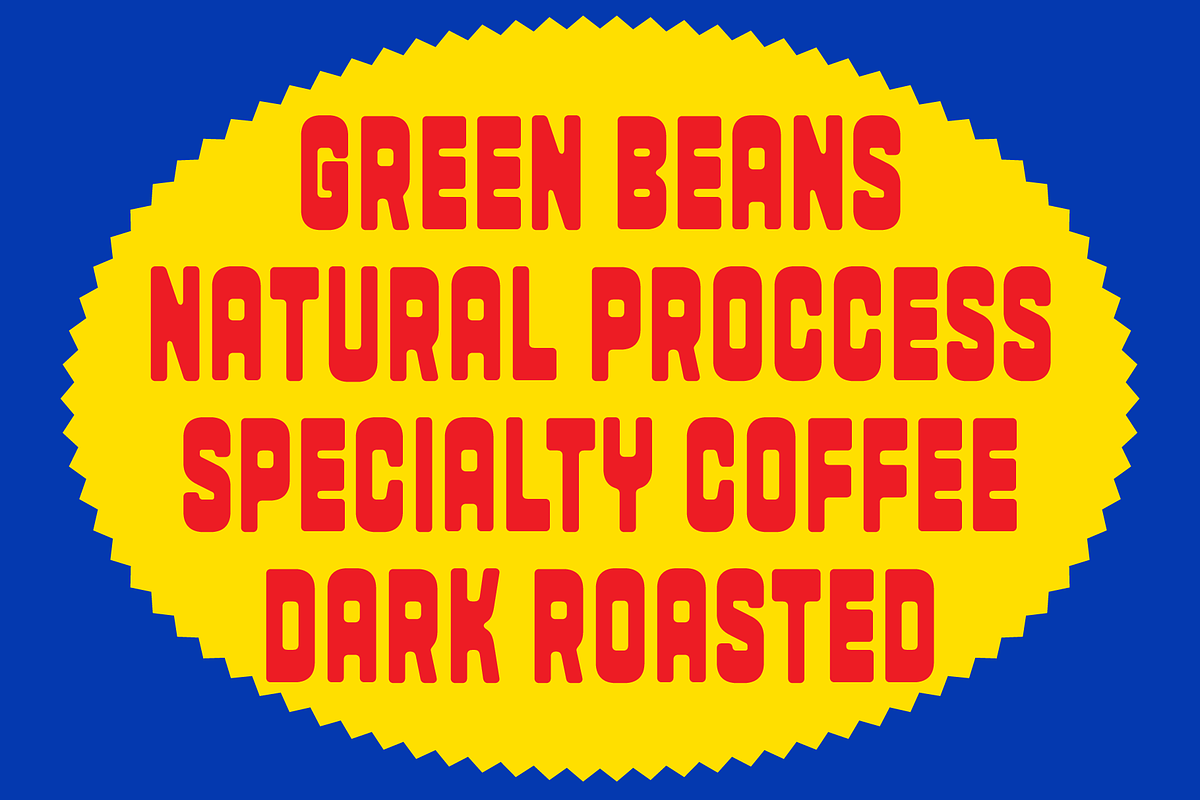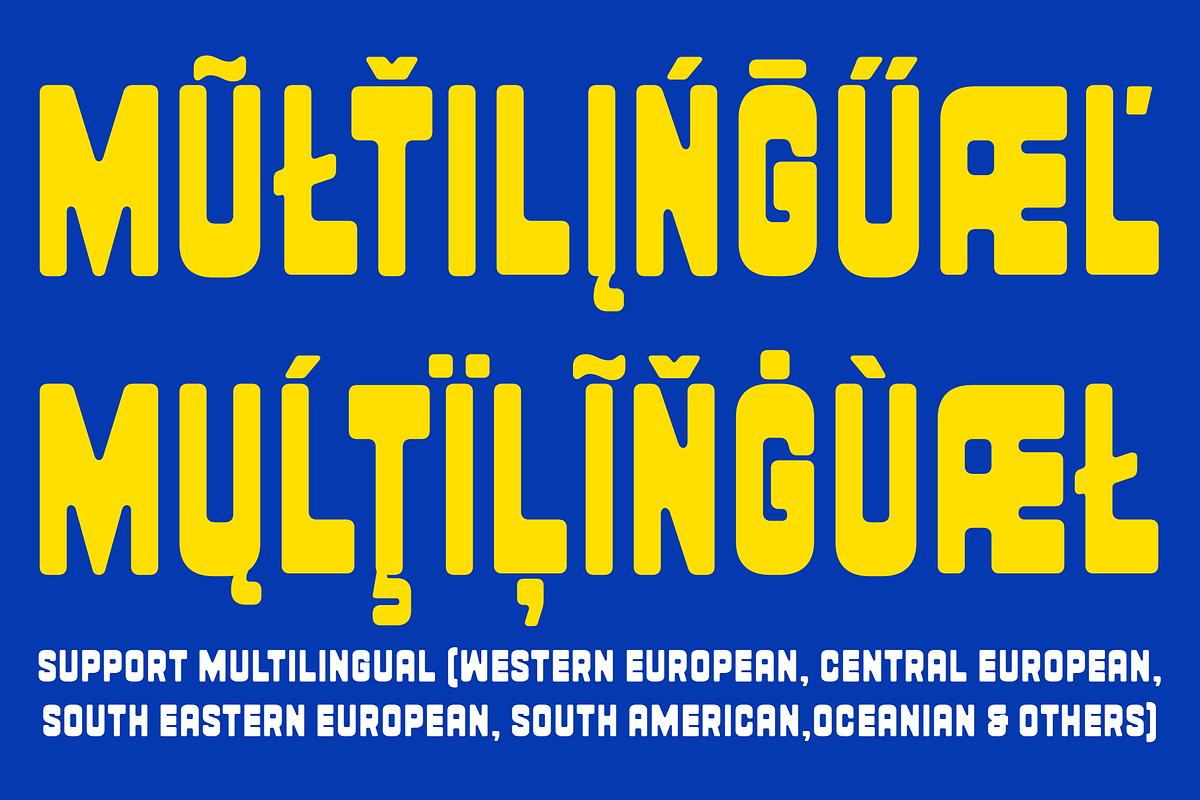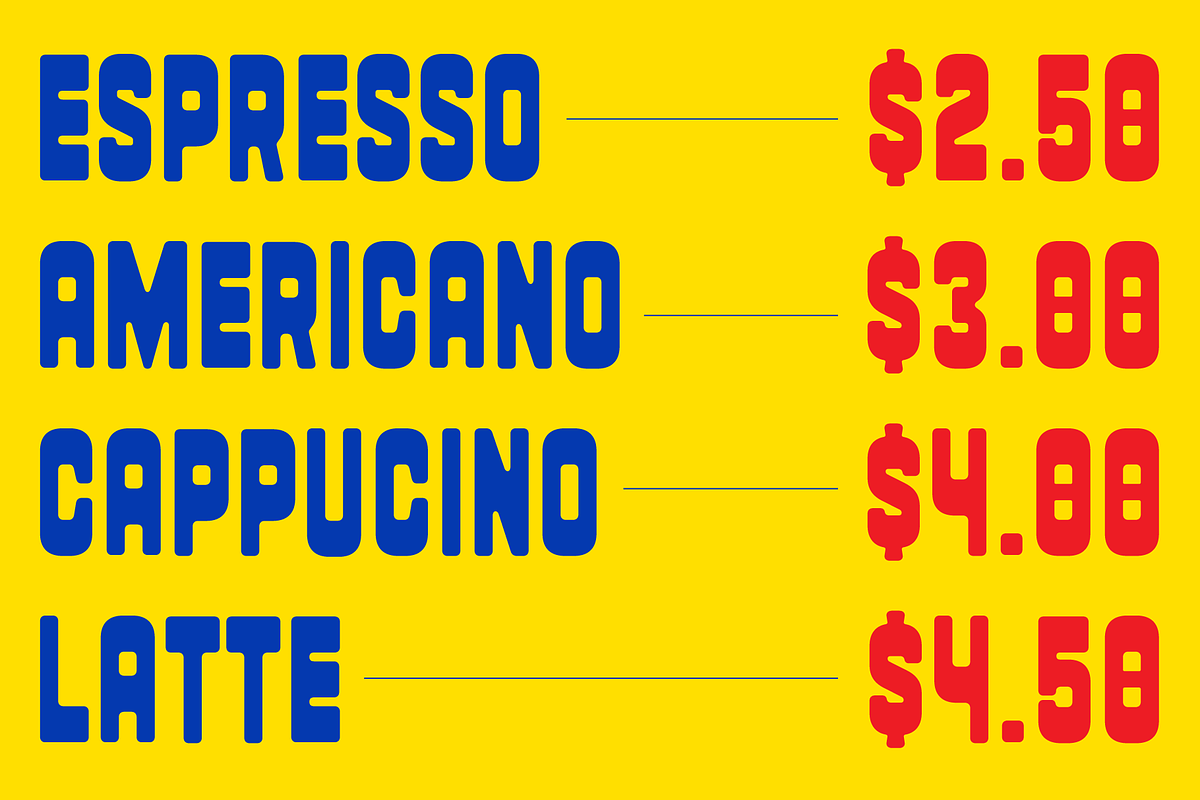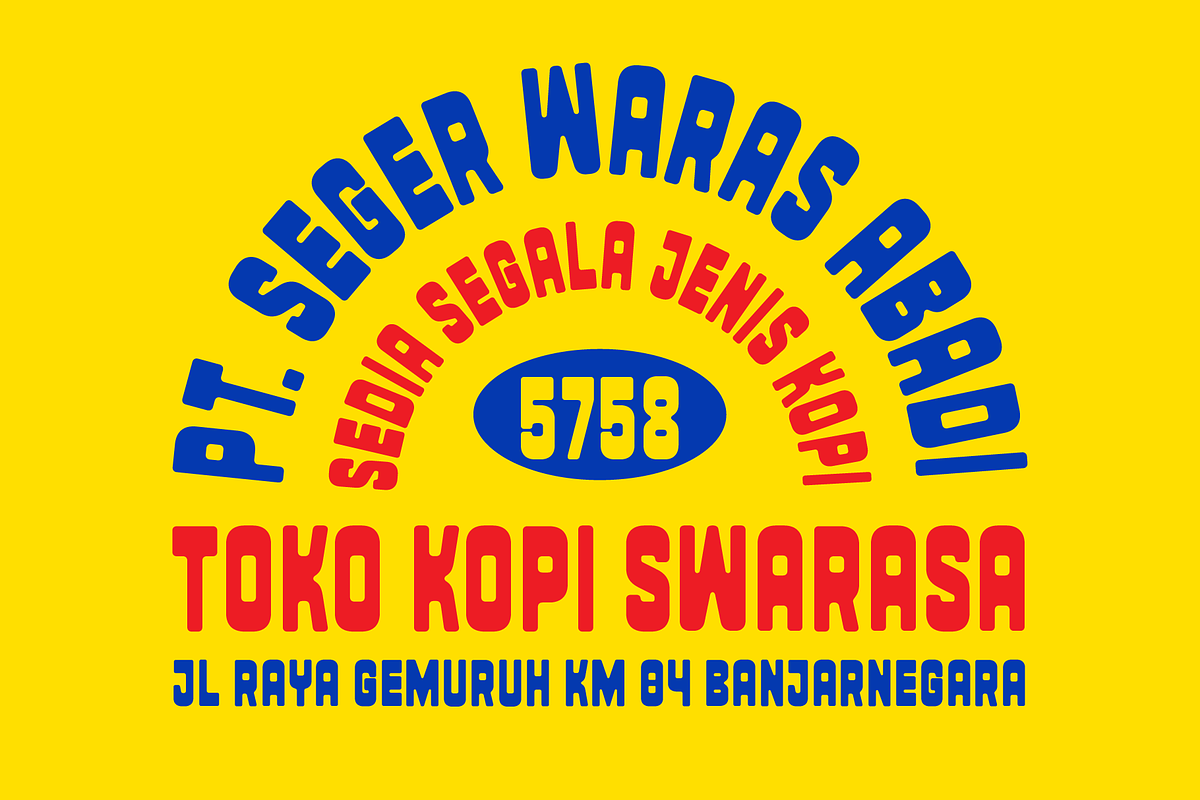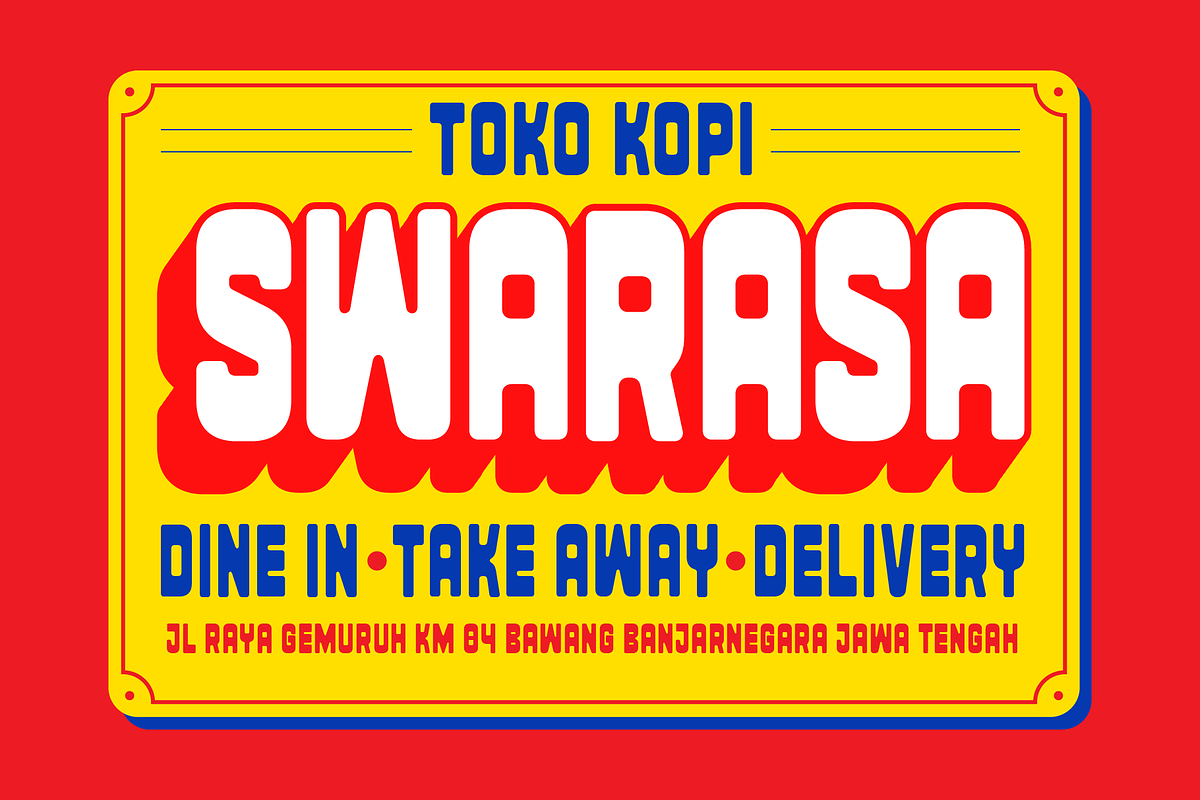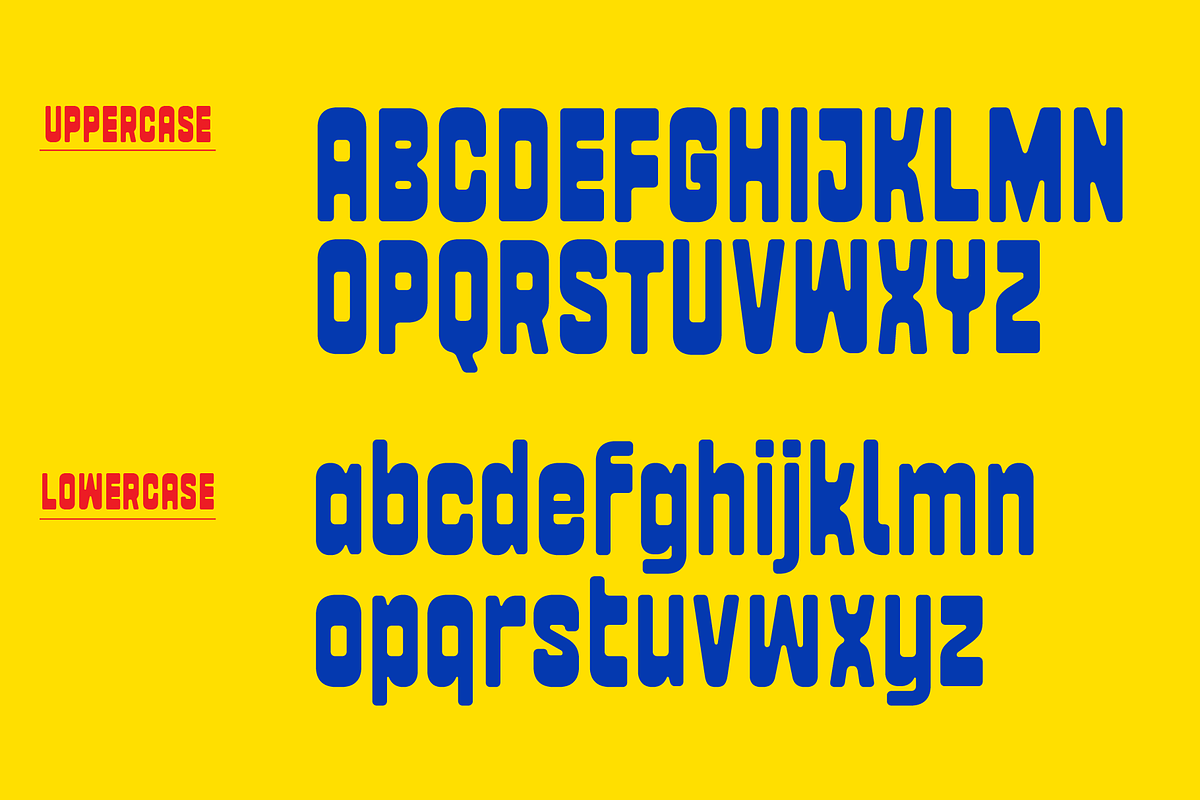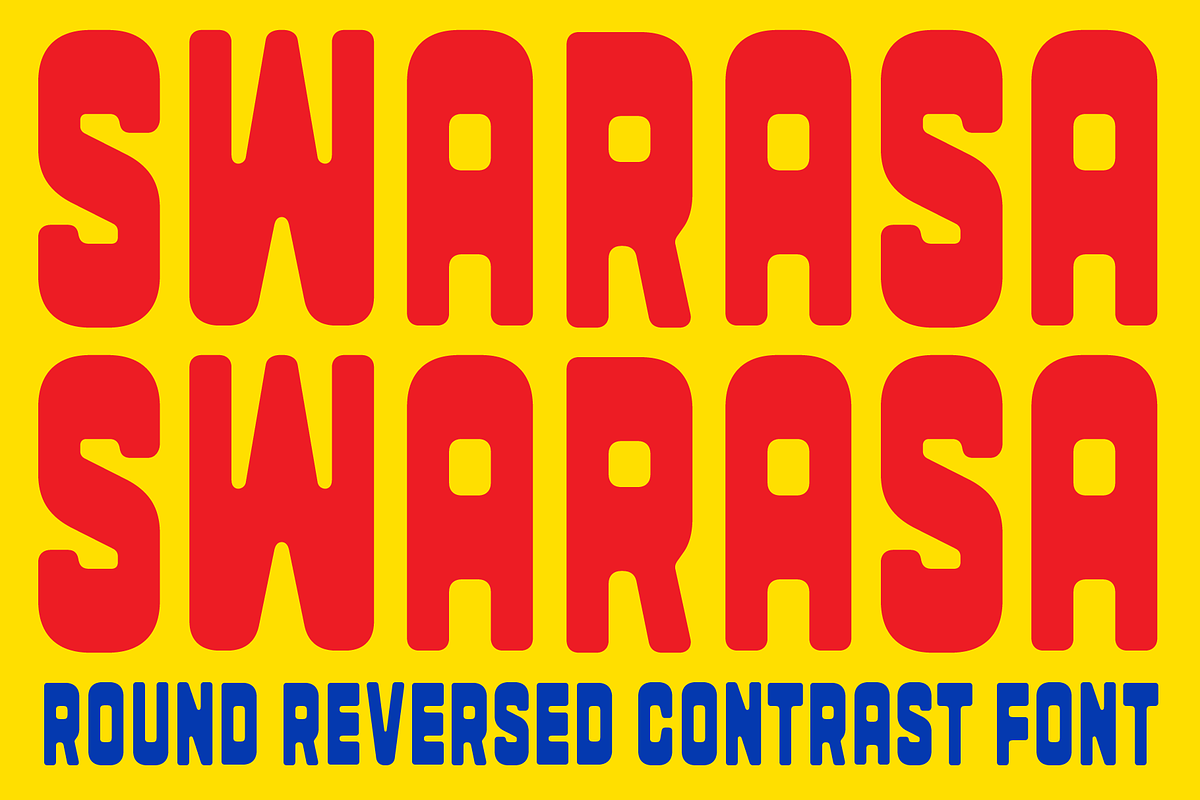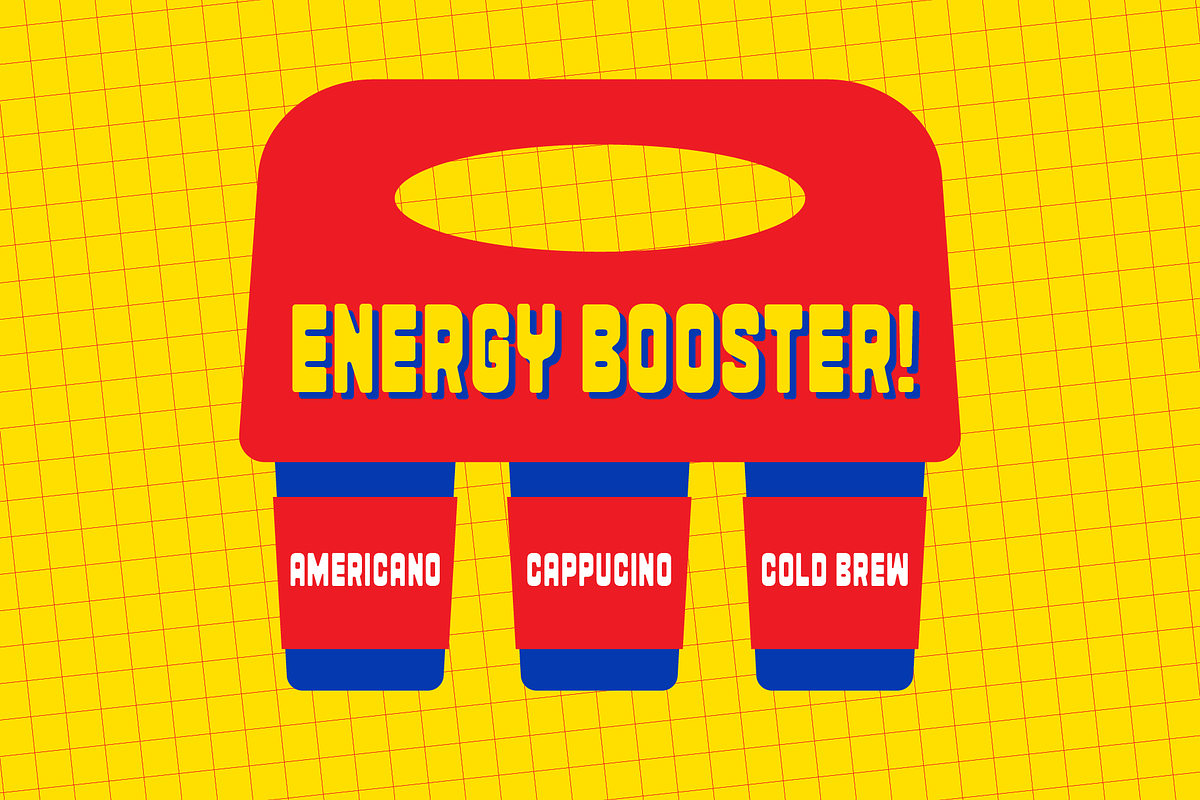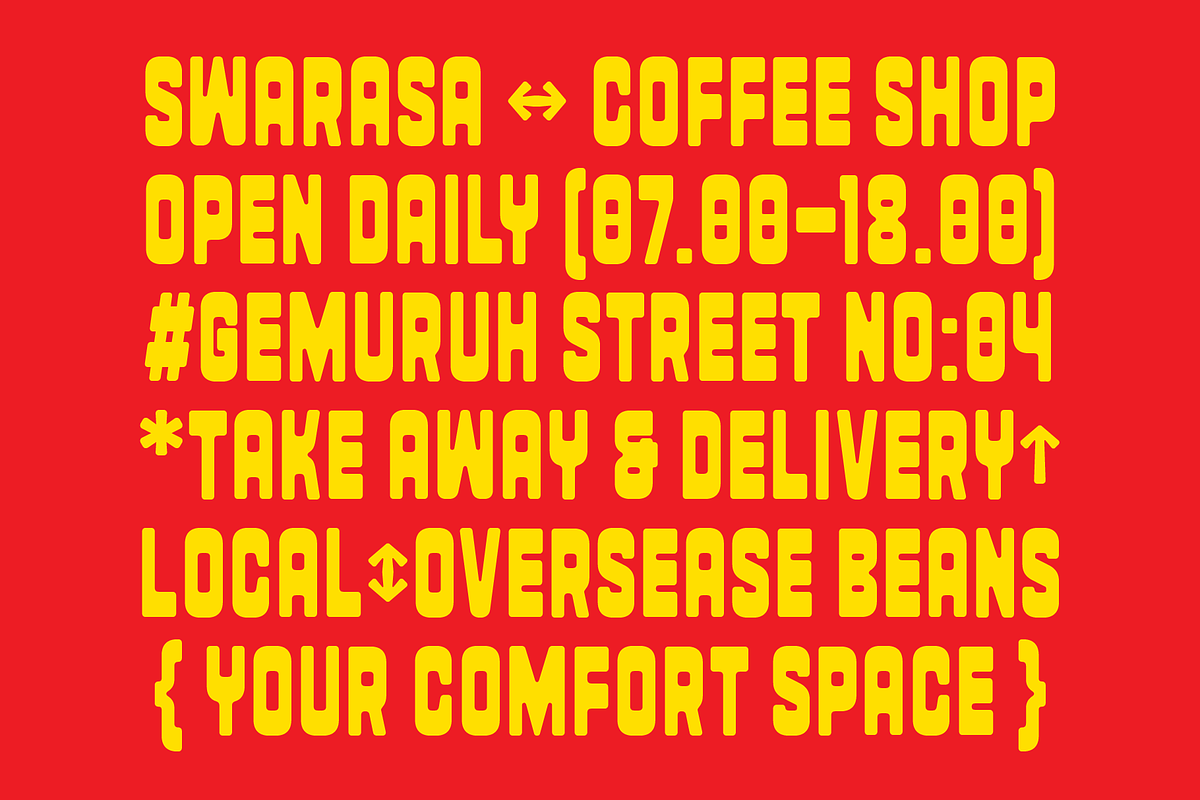
Swarasa – Chunky Reversed Contrast
Swarasa – Round Reversed Contrast Font
Swarasa is a unique display typeface with a round reversed contrast style that feels bold, playful, and full of character. Its inverted contrast and chunky rounded shapes bring a mix of retro vibes and modern quirkiness, making it stand out while staying highly readable.
- Posters and flyers with retro or pop-art themes
- Food & beverage branding
- Coffee packaging, organic products, or artisan labels
- Album covers, zines, or bold editorials
- Merchandise, apparel, stickers, and signage
With its strong personality and versatile look, Swarasa will add a fresh and distinctive touch to your design projects.